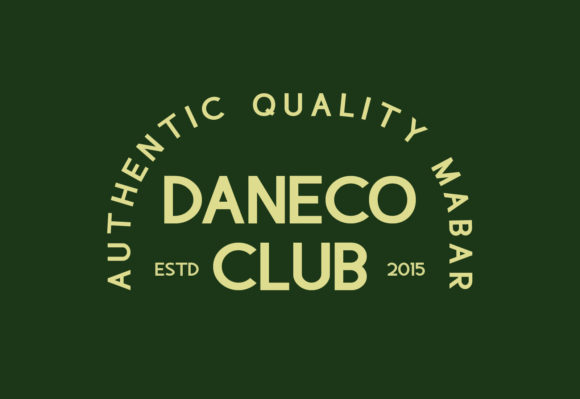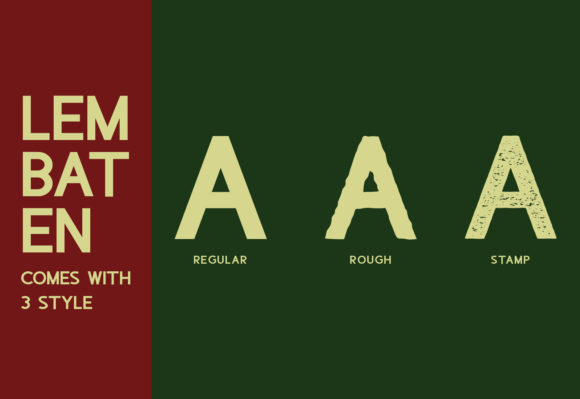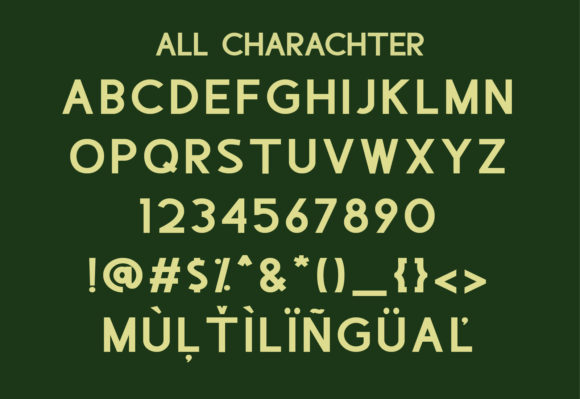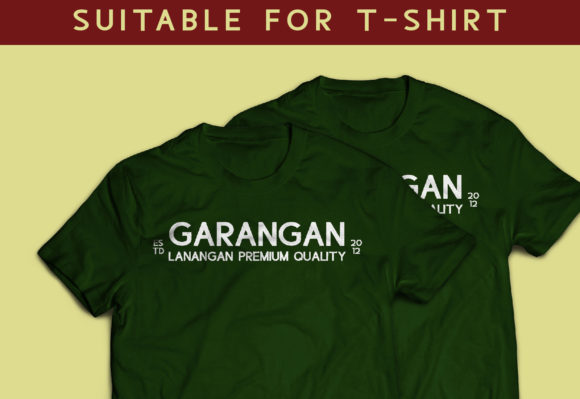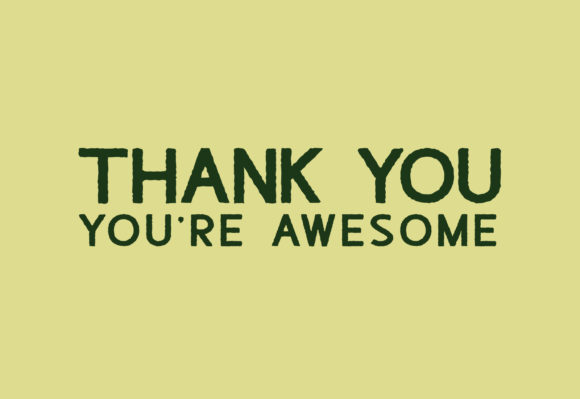
Introduction to Lembaten Font
Have you ever found yourself stuck in a creative rut, struggling to bring your project to life? We’ve all been there. But what if I told you that the perfect font could be the game-changer you need to take your ideas to the next level? Enter the Lembaten Font, a simple yet elegant sans serif font that’s perfect for designers looking to elevate their creative project.
With its clean lines and high-quality design, the Lembaten Font is an excellent choice for any project that requires a professional touch. Whether you’re working on a logo, brochure, or website, this versatile font is sure to impress. Plus, with its transparent background and free download option, it’s an accessible design resource that won’t break the bank.
Key Features of Lembaten Font
- High-quality font with a unique, hand-drawn design suitable for creative projects.
- Transparent background, making it easy to overlay on any image or design.
- Each font character is carefully crafted to provide a high level of detail and readability.
- Designed to be highly scalable, allowing for use in a variety of resolutions and sizes, from small text to large headings.
- Perfect for use in a range of creative projects, including digital art, graphic design, and print materials.
Honest Review: Lembaten Font
I recently came across the Lembaten Font and was excited to try it out in my next creative project. Overall, I was quite impressed with the quality of this font.
- High-quality typography: The Lembaten Font has a clear and crisp look, making it perfect for both digital and print projects.
- Transparent background: This feature allows for seamless integration with other design elements, making it easy to create visually appealing compositions.
- Limited character set: While the font looks great, the character set is relatively small, which may be a limitation for designers working on complex projects.
- No bold or italic variations: Unfortunately, this font does not come with bold or italic variations, which may limit its versatility.
Overall, I’m impressed with the Lembaten Font, and I’d definitely recommend it as a design resource for simple projects. However, for more complex projects, you may want to consider other options that offer a more comprehensive character set and additional variations.
Tips for Getting the Most Out of Lembaten Font
Use Lembaten Font in high-contrast designs to make your text stand out. Combine it with a transparent background to create a clean and modern look. Experiment with different font sizes and colors to add visual interest to your design.
Lembaten Font is a versatile design resource that can be used in a variety of creative projects, including logos, brochures, and social media graphics. It’s also a great choice for free download and use in personal projects.
Unlike Lembaten Font, Great Vibes has a more relaxed and casual tone, making it ideal for projects that need to convey a sense of fun and excitement.